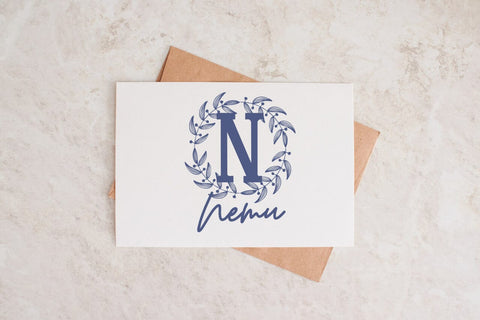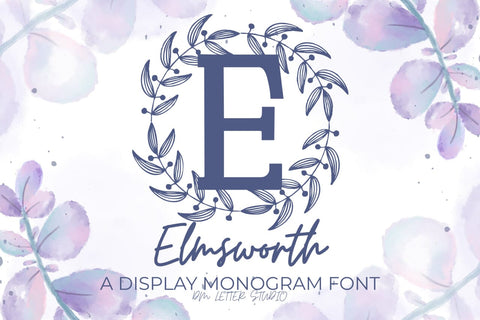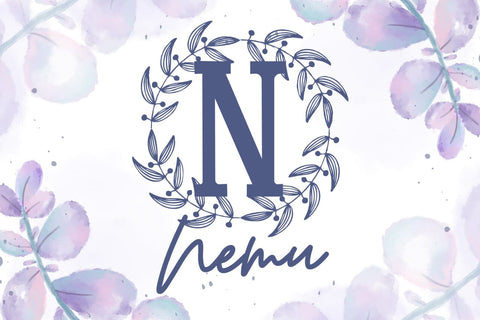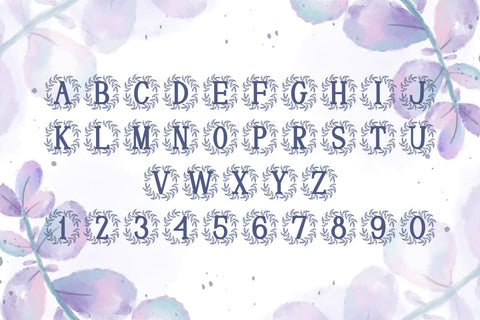
Elmsworth Monogram Font
Meet Elmsworth, the Monogram Font
Elmsworth Monogram Font turns simple initials into poised, boutique-ready emblems. Strokes feel smooth and confident, while generous counters keep tiny tags readable. Use it for wedding suites, boutique logos, keepsake gifts, foil seals, and premium packaging. In addition, Elmsworth pairs beautifully with refined serifs and quiet humanist sans fonts, so layouts stay elegant without extra work.
Where this monogram font shines
Set single, double, or triple initials for logos, seals, menus, and place cards. Then frame them with laurel rings, oval borders, or fine rules to echo the calm geometry. Since proportions favor symmetry and clarity, centered compositions come together in minutes. As a result, thumbnails pop on marketplaces and listings feel consistent from invitations to signage. Elmsworth also scales smoothly from jewelry cards to entry displays.
Design tips for Elmsworth Monogram
Keep initials large and let white space breathe. Pair the headline monogram with a soft serif for body text or a clean sans for labels and dates. Add micro shadows, a thin inner stroke, or a delicate frame for depth. Because the forms are airy and balanced, textured papers and metallic accents raise perceived value. However, keep wording short so the monogram remains the hero on small favors and tags.
Select stylistic alternates for key letters
Curves tuned for foil, letterpress, engraving, laser cutting, and clean vinyl paths
Why creators choose Elmsworth
You want elegance that reads at a glance and sells across many product types. Then, Elmsworth Monogram Font delivers steady clarity, quick layout, and a cohesive brand voice from invites to packaging and gifts.